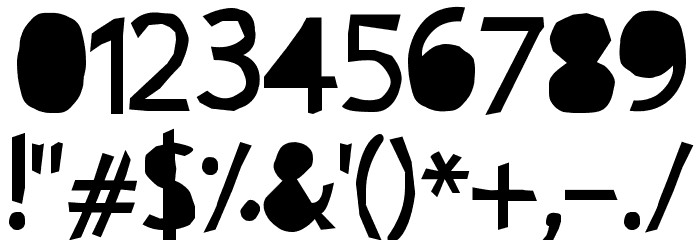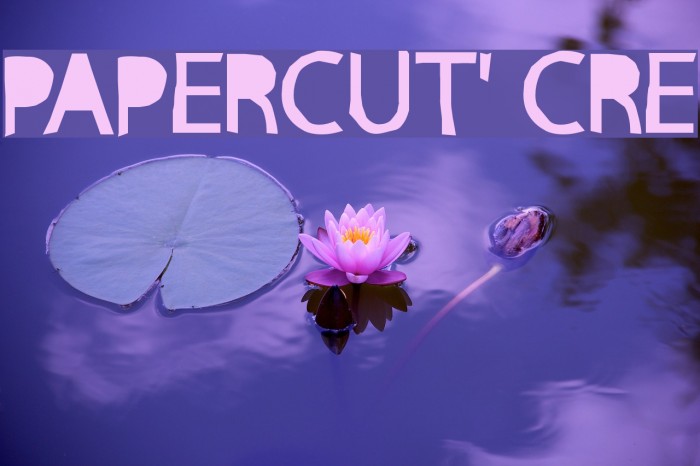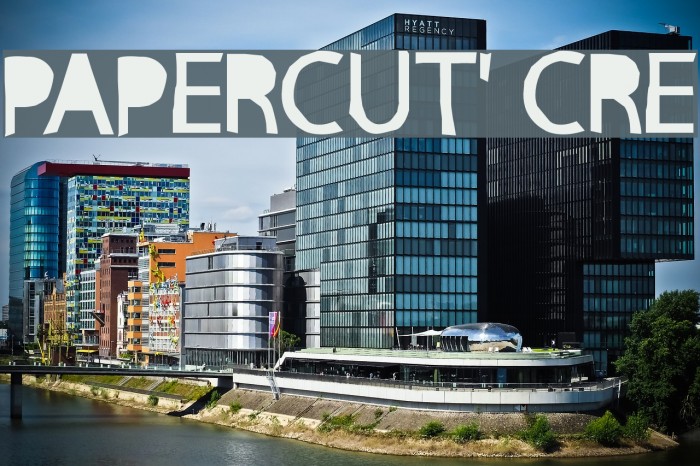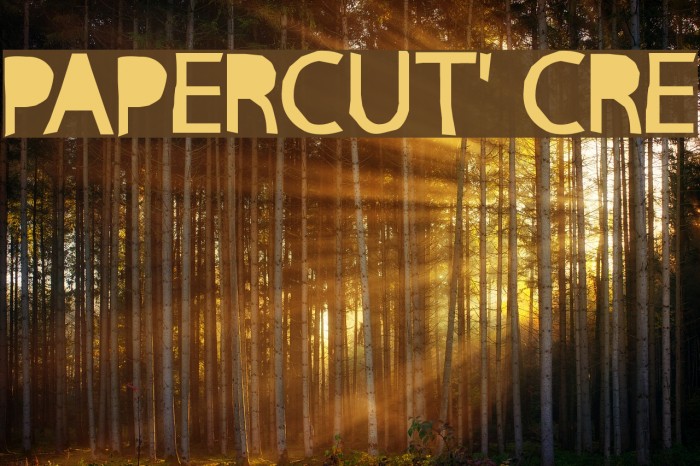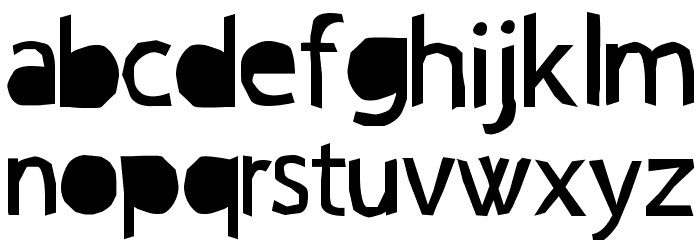
PAPERCUT' CRE Font
PAPERCUT' CRE Description
This font exhibits a playful and artistic style reminiscent of cut-out paper shapes. The characters have irregular, jagged edges, giving them a handcrafted appearance. The uppercase and lowercase letters maintain a consistent height, while the numbers and special characters follow the same design ethos, enhancing the overall cohesive look. The font's unique style makes it stand out, with each character appearing as if it has been meticulously crafted by hand. This design choice adds a sense of whimsy and creativity, making it suitable for projects that require a touch of individuality and artistic flair.
| Overall Style | Artistic, Handcrafted |
| Use Case | Headlines, Posters, Creative Projects |
| Proposed Projects | Ideal for children's books, creative posters, DIY craft projects, and artistic branding. |